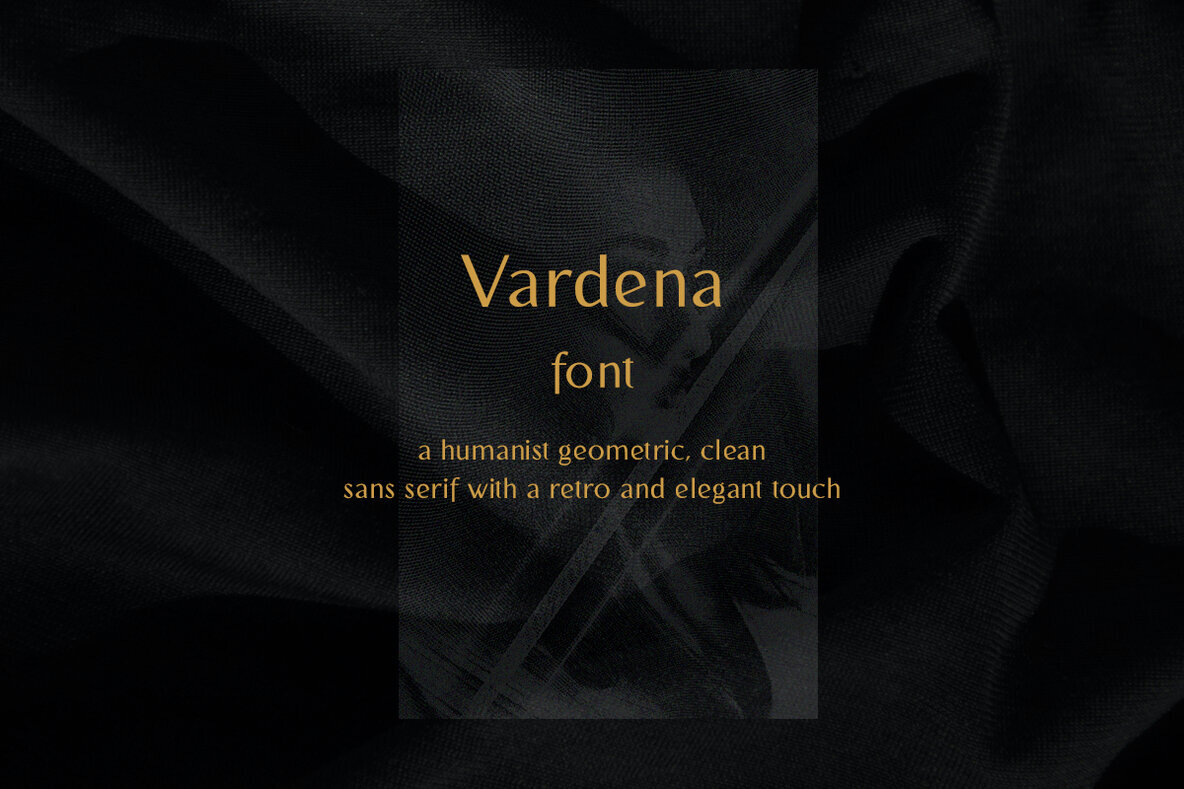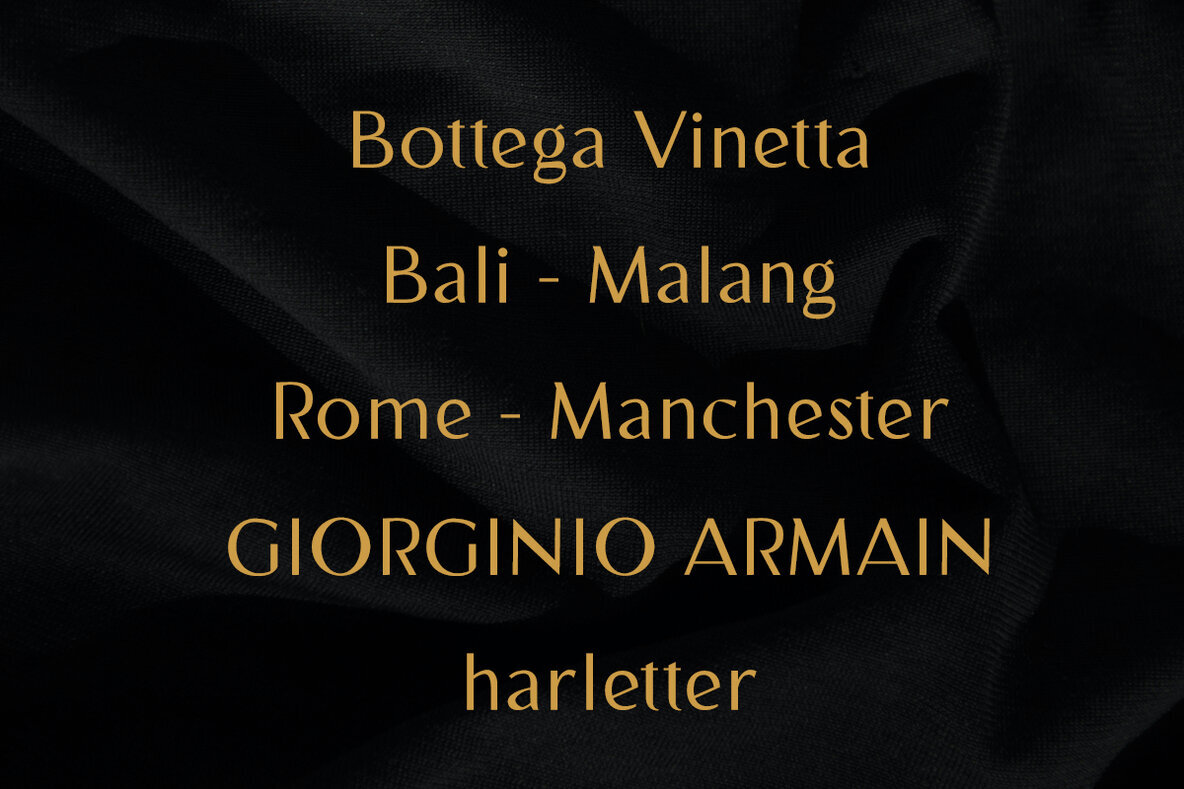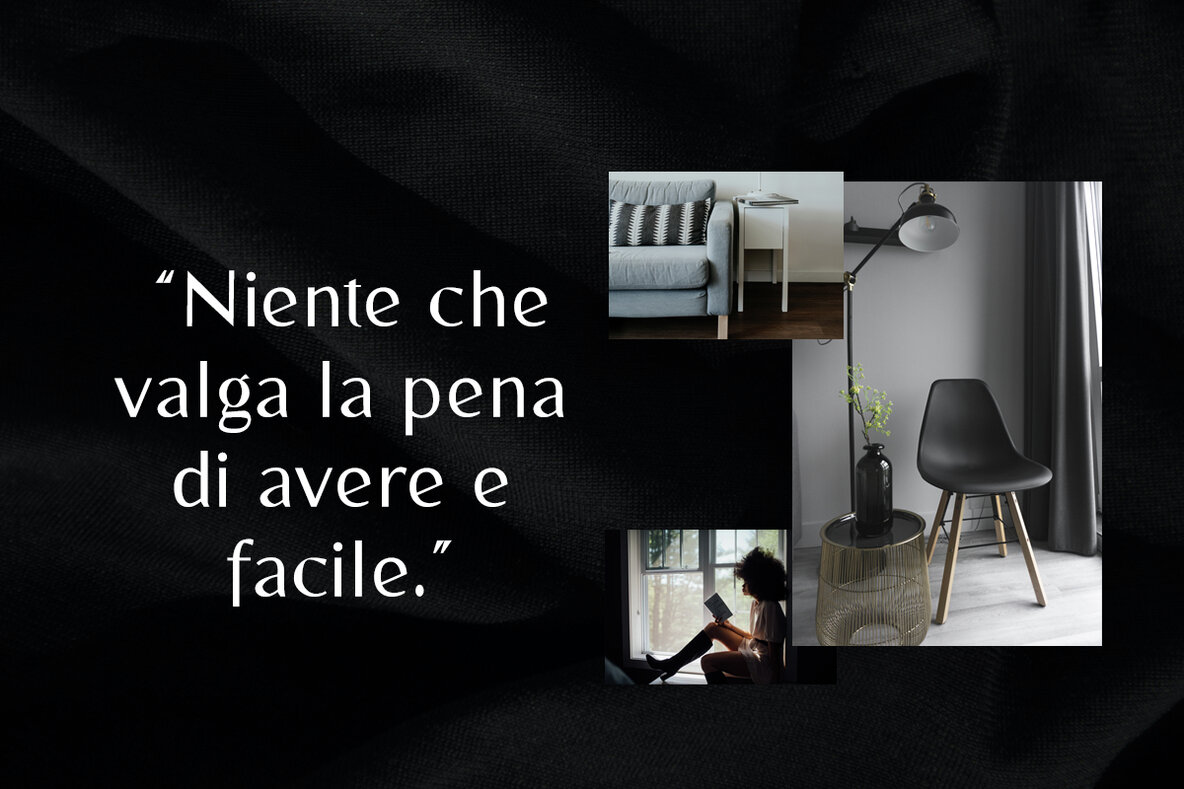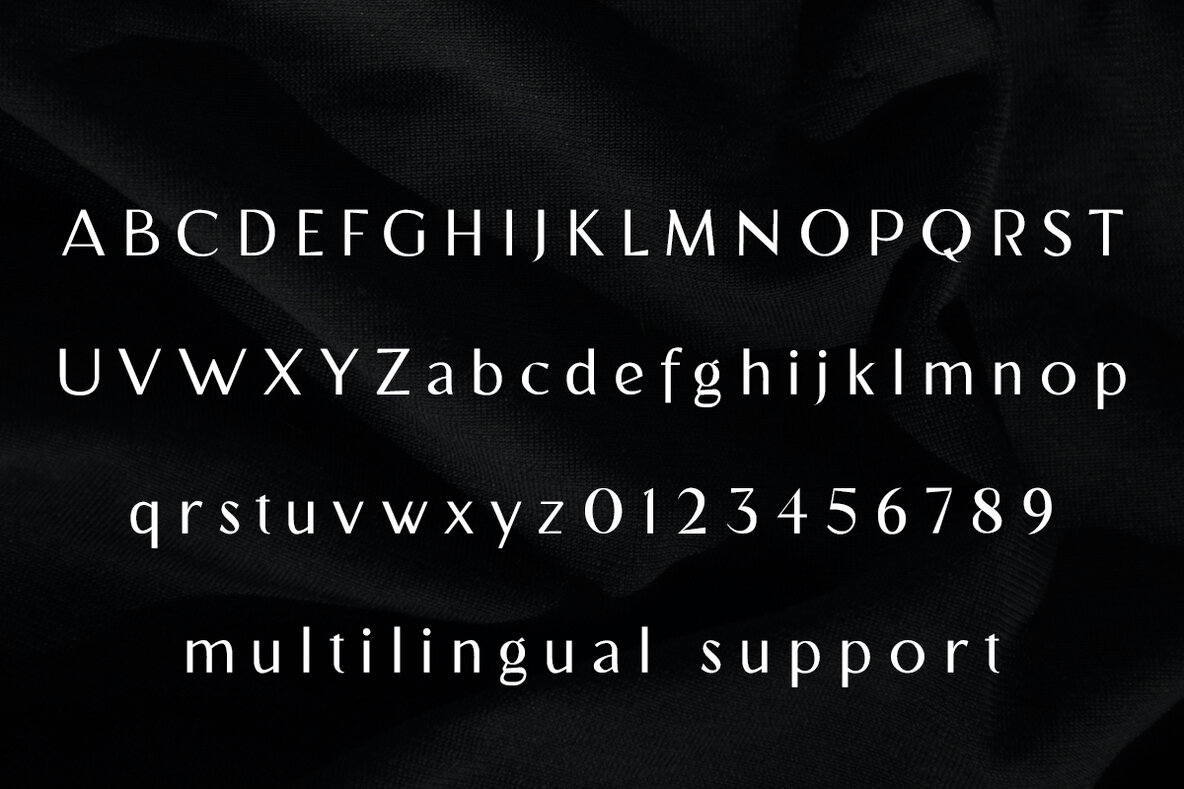
Vardena Font
Vardena by Lettercorner Studio is a semi-geometric, clean sans serif font that exudes a retro, humanist elegance. This typeface is specially crafted for projects requiring a simple, clean, and stylish appearance. It is an ideal choice for creating elegant and retro designs, including logos, packaging, social media, and more.Vardena: Semi-Geometric Sans Serif with Retro Elegance